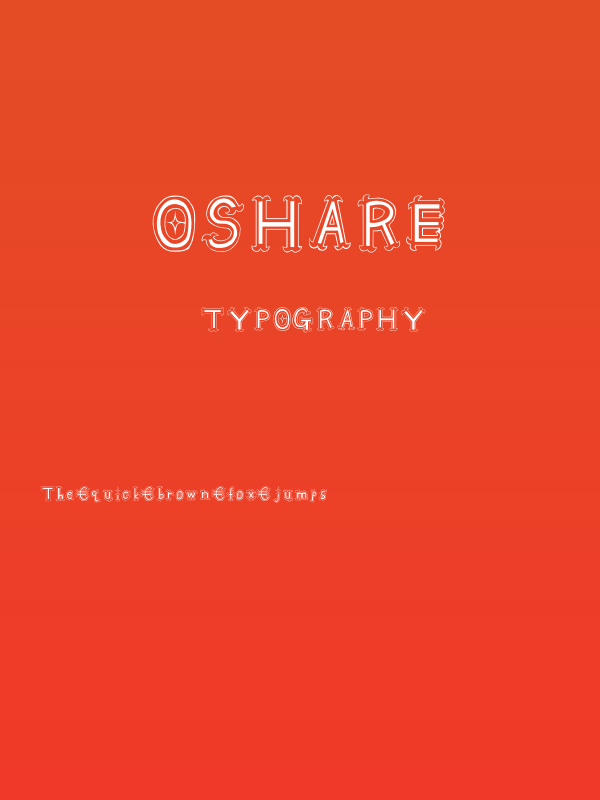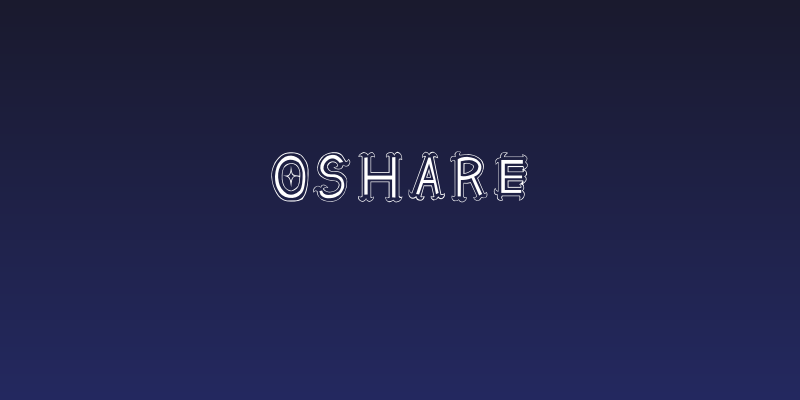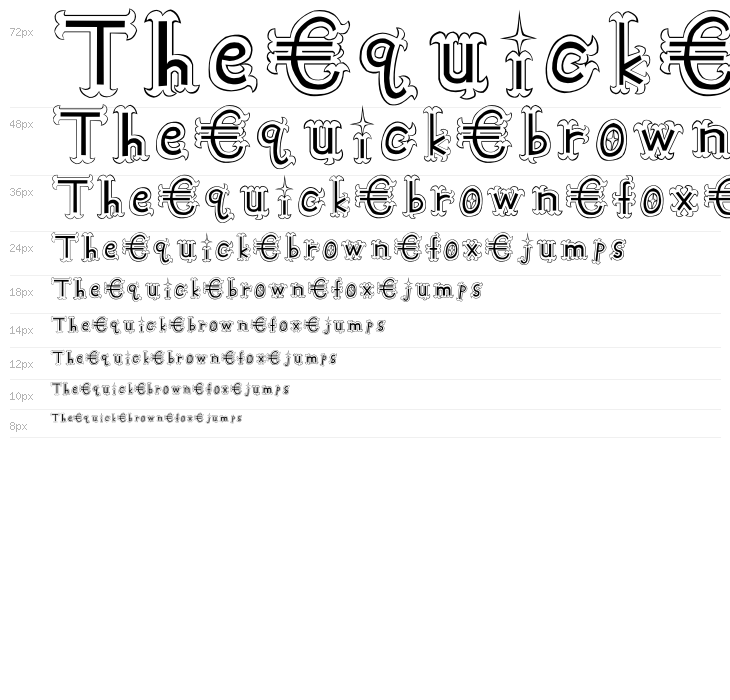
Oshare Font
Oshare Description
This font features a unique and decorative style, characterized by its bold outlines and intricate inner details. Each letter is adorned with small star-like embellishments, giving it a whimsical and playful appearance. The uppercase and lowercase letters maintain a consistent design, with the lowercase letters mirroring the ornate style of the uppercase. The numbers and special characters follow the same decorative theme, ensuring a cohesive look across all characters. This font's distinct style makes it stand out, ideal for projects that require a touch of creativity and flair.
| Proposed Projects | Ideal for creative projects such as event invitations, posters, and branding materials that require a whimsical and eye-catching design. |